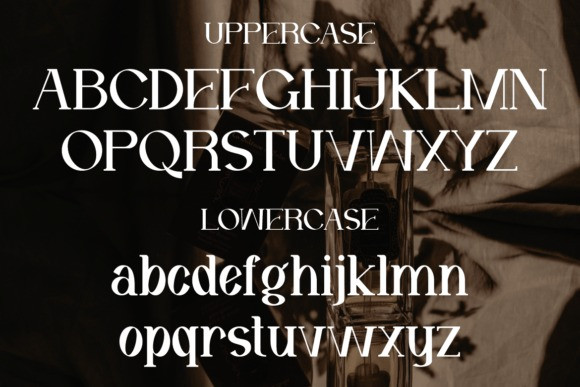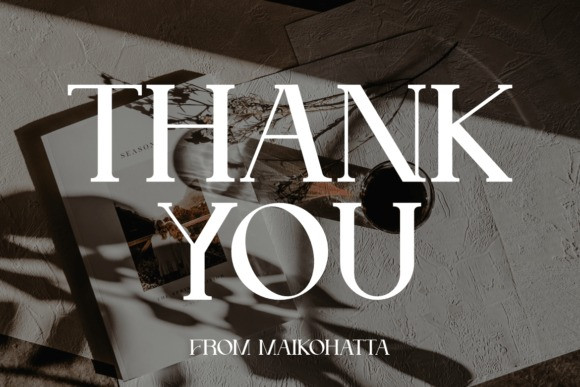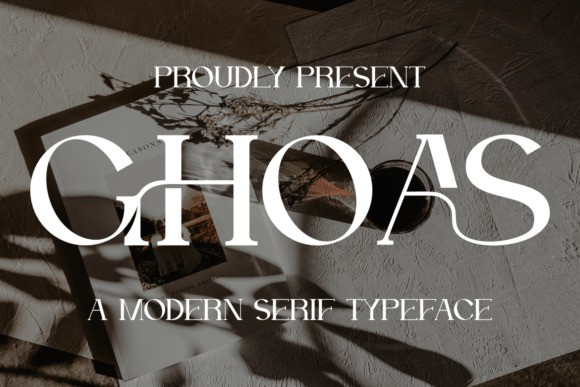
Ghoas Font
Ghoas Font – Serif Beauty Font – Modern Font is a bold and authentic display font. The font is suitable for any branding project like logo, template design, esport, and many more. outstanding in a wide range of contexts.